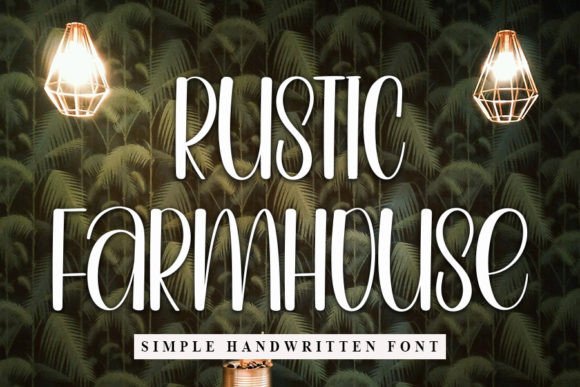
Introducing Rustic Farmhouse Font, the ultimate script font designed to elevate your business and capture the essence of rustic charm. Created by Inermedia STUDIO, this font is your go-to choice for all your creative needs.
With Rustic Farmhouse Font, you can effortlessly create stunning flyers that will captivate your audience and leave a lasting impression. Its elegant and flowing script style adds a touch of sophistication to any design, making it perfect for wedding invitation cards that exude romance and elegance.
Logos are the face of your brand, and Rustic Farmhouse Font ensures that your logo stands out from the crowd. Its unique and eye-catching design will make your brand instantly recognizable and memorable. Whether you're a small business or a large corporation, this font will help you leave a lasting impact.
Banners are a powerful marketing tool, and Rustic Farmhouse Font takes your banner designs to the next level. Its versatility allows you to create banners that are not only visually appealing but also convey your message effectively. Grab your customers' attention and make them curious to explore what your business has to offer.
When it comes to birthday cards, Rustic Farmhouse Font adds a touch of warmth and personalization. Its handcrafted style brings a sense of authenticity and care, making your birthday wishes truly special. Your loved ones will appreciate the thought and effort put into their personalized cards.
Social media is a competitive landscape, but with Rustic Farmhouse Font, you can effortlessly stand out. Craft compelling posts that grab attention and inspire action. This font's unique style will make your content share-worthy and help you build a strong online presence.
Thumbnails play a crucial role in attracting viewers to your videos or articles. Rustic Farmhouse Font helps you create captivating thumbnails that entice viewers to click and explore further. Its eye-catching design and versatility make it the perfect choice for any type of content.
In conclusion, Rustic Farmhouse Font is your ultimate companion for all your creative endeavors. Its versatility, elegance, and unique design make it the perfect choice for flyers, wedding invitation cards, logos, banners, birthday cards, social media posts, and thumbnails. Stand out from the crowd, captivate your audience, and leave a lasting impression with Rustic Farmhouse Font.